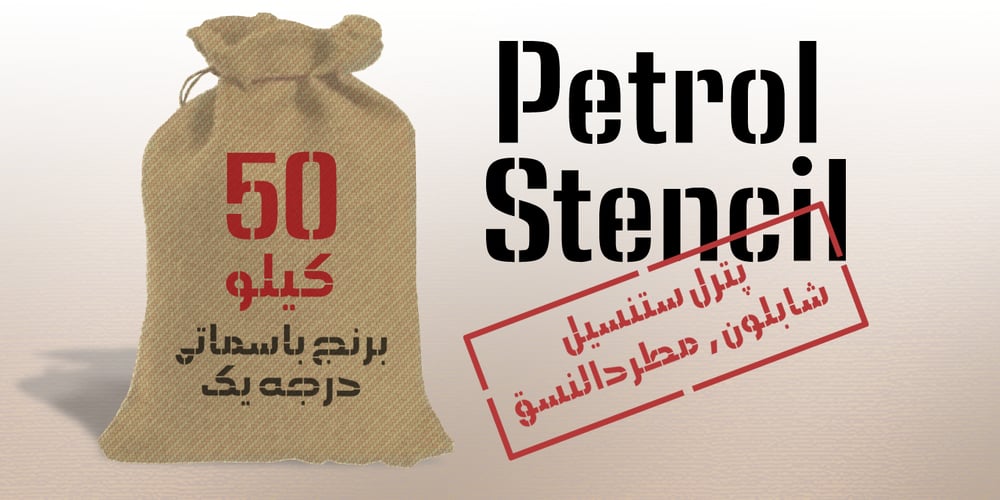
Petrol Stencil Font Family was designed by Naghi Naghashian and published by Naghi Naghachian. Petrol Stencil contains 1 styles and family package options. Petrol Stencil is a new creation of Naghi Naghashian. Petrol Stencil is designed for technical use. it is the first Arabic Stencil typeface known until today for stamping on packing crate, sacks and vehicles. This typeface offers a fine balance between calligraphic tradition and the sans serif aesthetic common in Latin typography. Petrol Stencil supports Arabic, Persian, and Urdu.